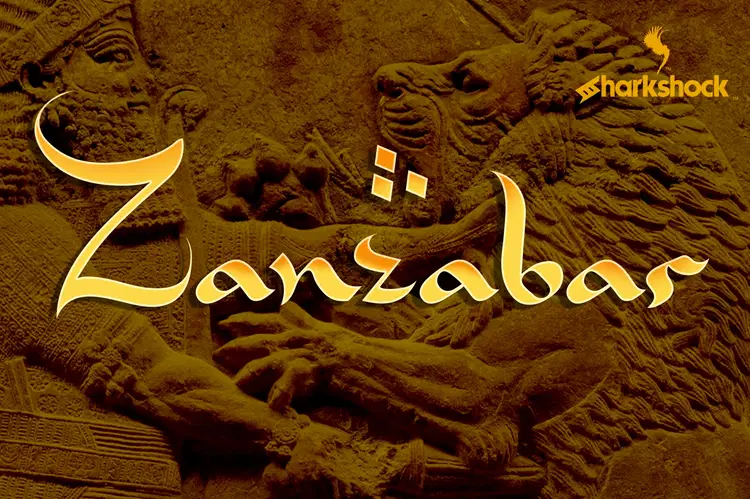
Fonts are more than just letters; they convey a story, an essence. If you’re aiming to infuse your designs with a vibrant and traditional vibe, African fonts are the perfect choice. These fonts exude tribal energy, adding an authentic touch to any project.
Embellished with intricate patterns and motifs, African fonts offer endless possibilities for creative expression. Whether you’re designing posters, logos, or invitations, these fonts will transport your audience to the heart of Africa.
1. Zenzero Grotesk Typeface
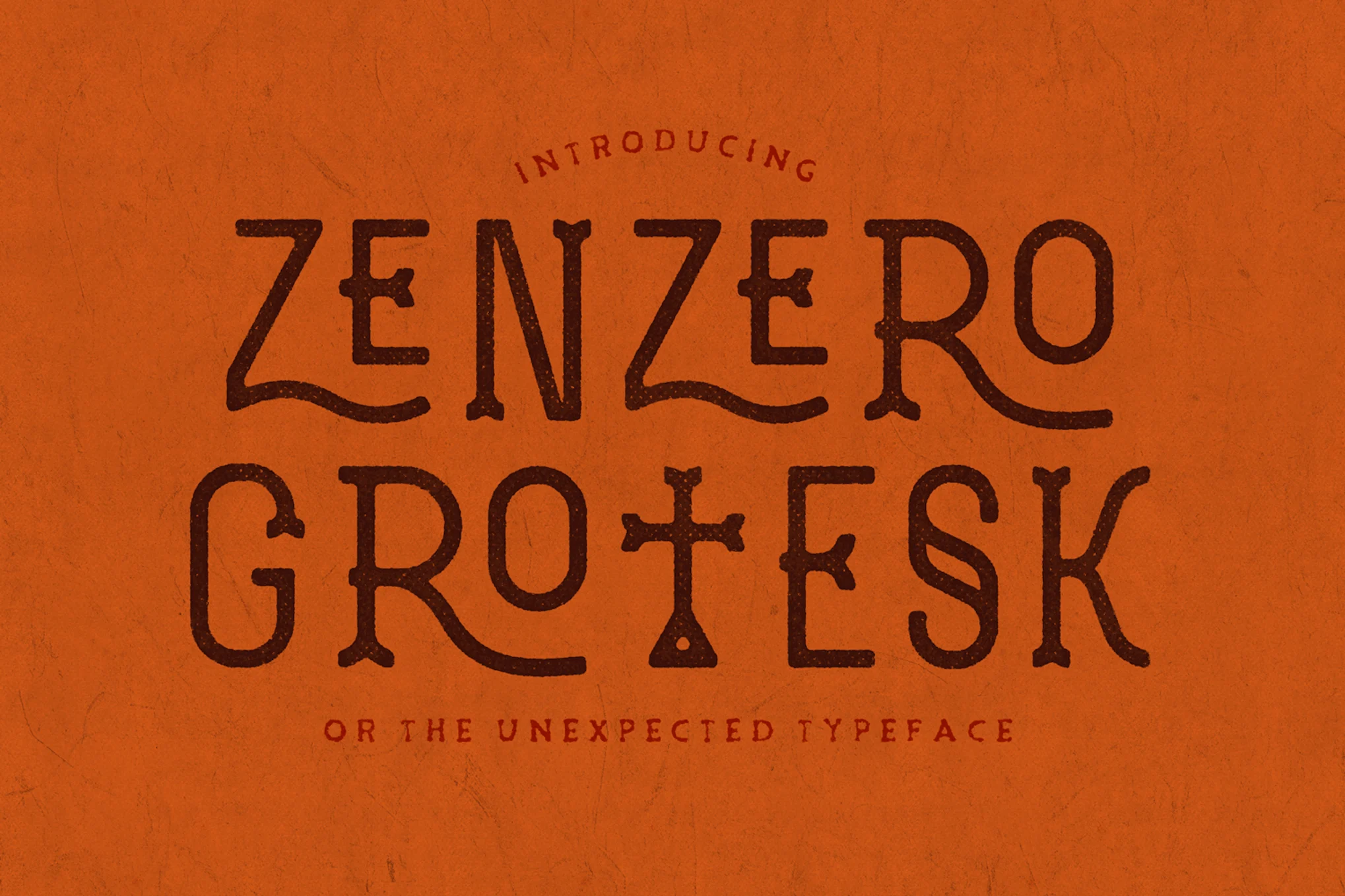
A dynamic, quirky, and chic display font, blending elements of sans serif and slab. Crafted by Valerio Dell’Edera, Zenzero Grotesk offers versatility for various applications. With its myriad ligatures and stylistic alternate glyphs, it empowers users with limitless creative potential.
2. Wakolltu Font
Wakolltu embodies the essence of ethnic culture with its playful and captivating display typeface. Ideal for logo design, social media, movie titles, book titles, and more. Its versatility extends to both short and long text, making it suitable for various design projects.
- Alternates & Ligatures
3. Ancient Totem – Ethnic Tribal Font
Ancient Totem presents a captivating Ethnic Tribal Font available in two distinct models. With its playful character and unique display, Ancient Totem draws inspiration from traditional tribal and ethnic styles, adding a touch of cultural richness to your designs.
This versatile font is not only perfect for projects with tribal and ethnic themes but also suitable for logos, branding, greeting cards, invitations, advertisements, titles, headlines, packaging, quotes, posters, and more.
4. African Breeze Playful Font
African Breeze Playful Font is a vibrant and expressive typeface, exuding a sense of joy and creativity. This decorative sans serif font boasts an ornamental and handwritten style, perfect for adding a playful touch to your projects.
With its multilingual support, including CAPS and CAPS alternates (small letters), along with numbers and special characters, this font offers versatility for various design needs. Whether you’re working on branding, advertisements, posters, or other creative endeavors, African Breeze adds a delightful charm to your typography.
5. Zanzabar Font
Zanzabar Font is an exotic display typeface infused with a captivating Middle Eastern influence. With its distinctive Arabic-inspired design, this font adds a touch of cultural richness to any project.
Featuring characters that emulate the elegance of Arabic script, Zanzabar offers a unique and whimsical appearance. While primarily suited for larger text such as logos, children’s books, or movie posters, it may not be ideal for all-caps or small body text.
6. Golden Dunes – Festive Font
Golden Dunes presents a vibrant and celebratory typeface perfect for adding a touch of festivity to your designs. This versatile font offers both Regular and Outlined Condensed styles, providing ample creative opportunities for presentations, posters, invitations, and more.
9. Frunch Font
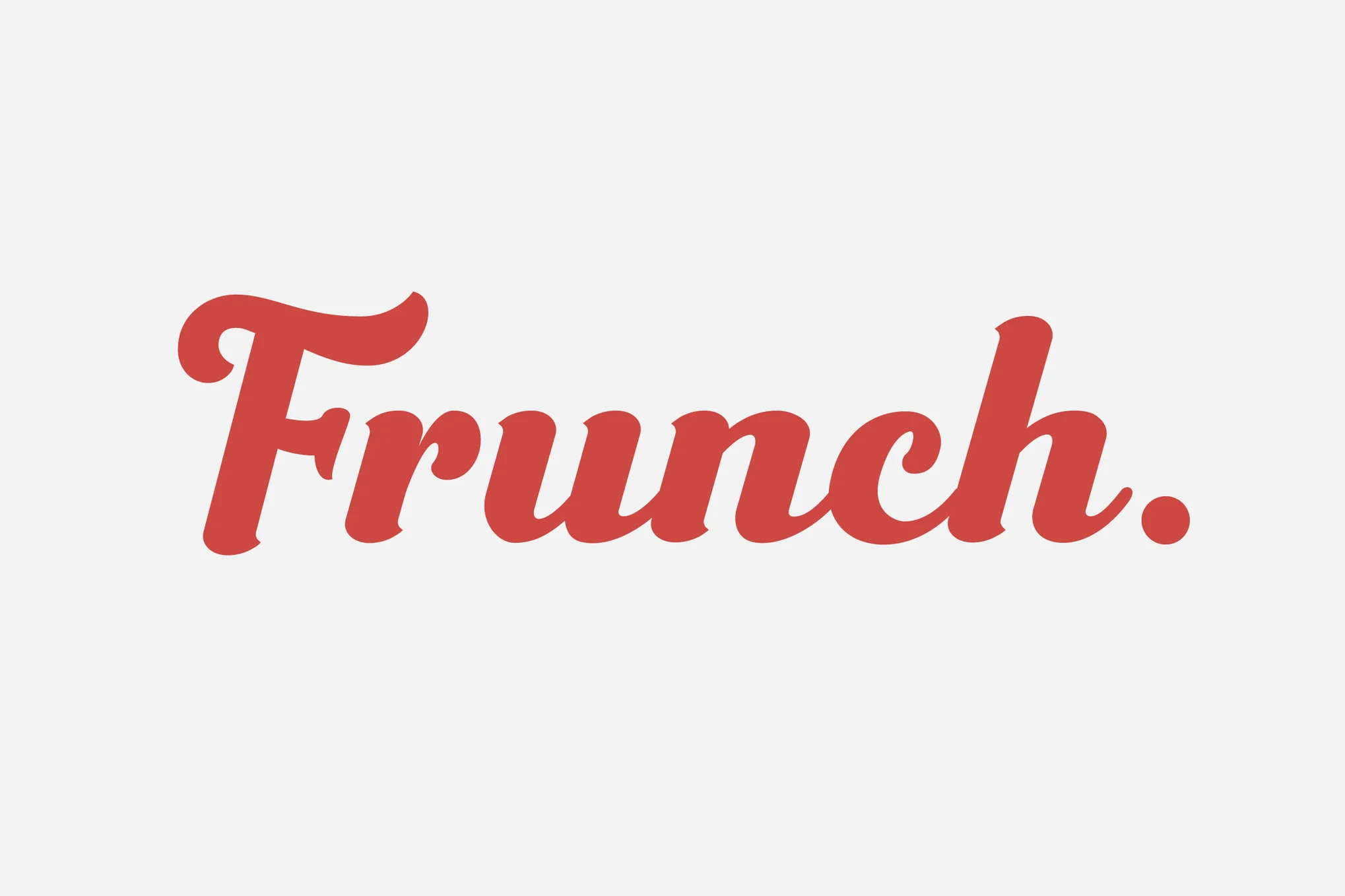
Frunch Font satisfies your craving for a bold and flavorful typeface with its vintage charm. This delicious script font features a variety of alternate letters and lowercase swashes, adding delectable flair to your designs.
Ideal for food and beverage branding, as well as product packaging typography such as snacks, honey, breakfast items, milk, bread, and cake, Frunch is also perfect for posters, business cards, headlines, restaurant menus, and more.